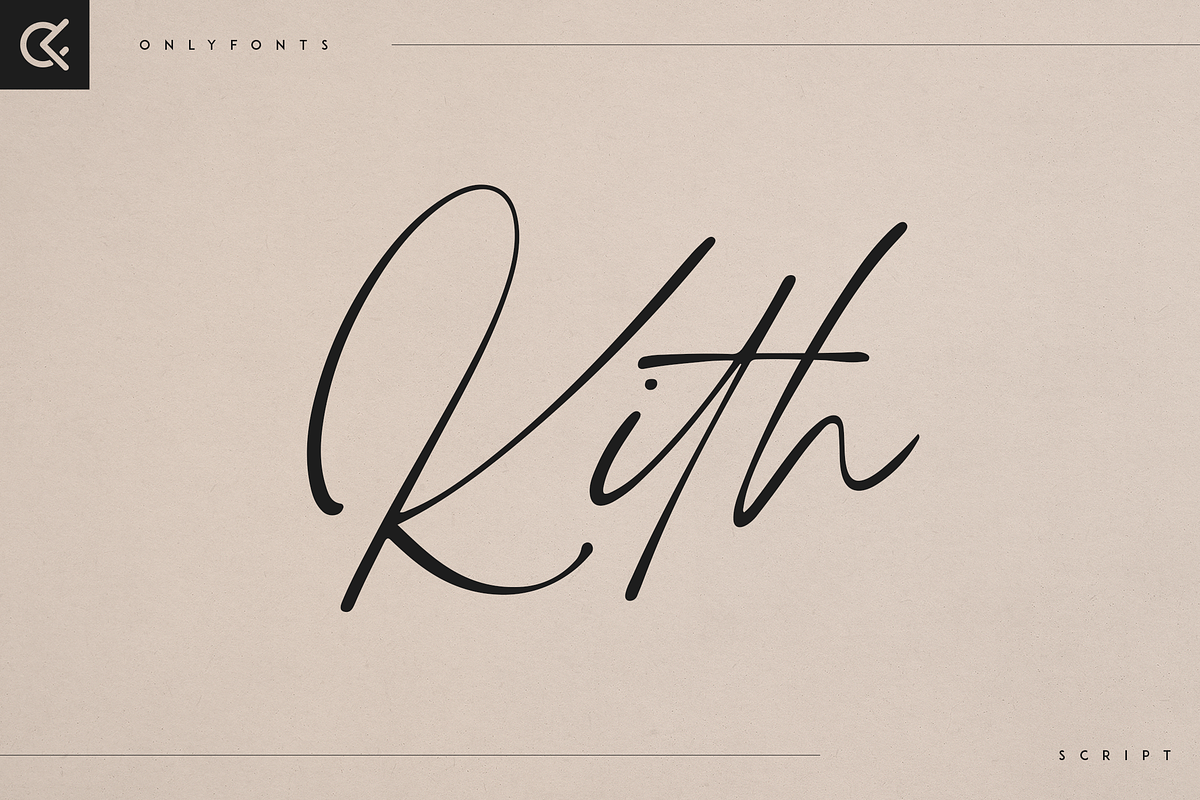
Please note that you must purchase this font for commercial use. You can download Kith – Handmade Script Font for free, strictly for personal testing purposes only. Kith is a beautifully crafted handmade script font that exudes warmth and authenticity. With its smooth, flowing strokes and natural, handwritten style, Kith Handmade Script Font Free Download is perfect for personal projects, logos, branding, invitations, greeting cards, and any design that requires a handcrafted, genuine feel.
This font combines elegance and personality, offering a personal touch to any project. It includes uppercase and lowercase letters, numerals, punctuation, and multilingual support, making it versatile for global design needs.
Whether you're designing a unique brand identity or adding a personal flair to invitations and stationery, Kith brings creativity and warmth to your typography.